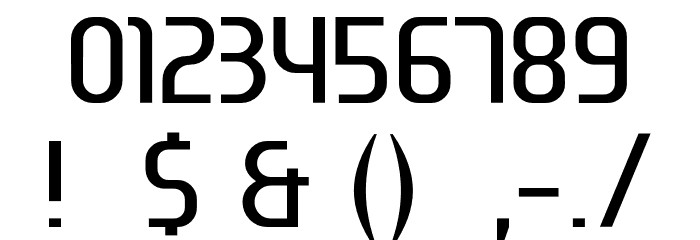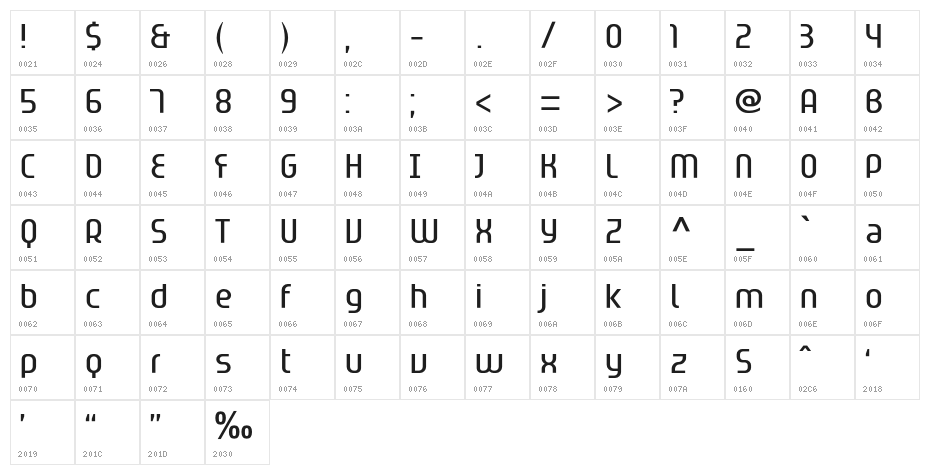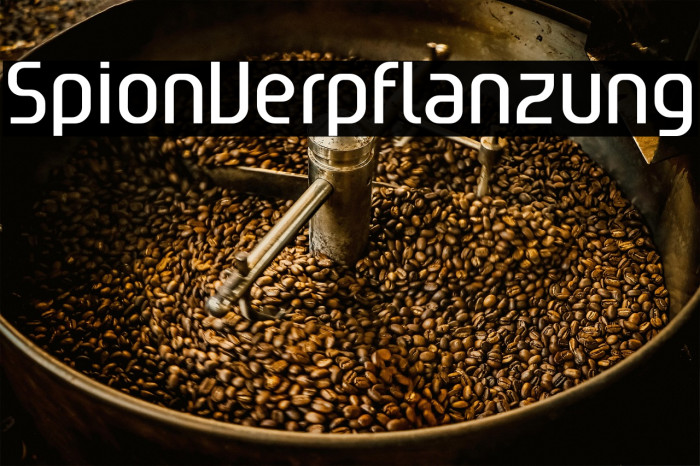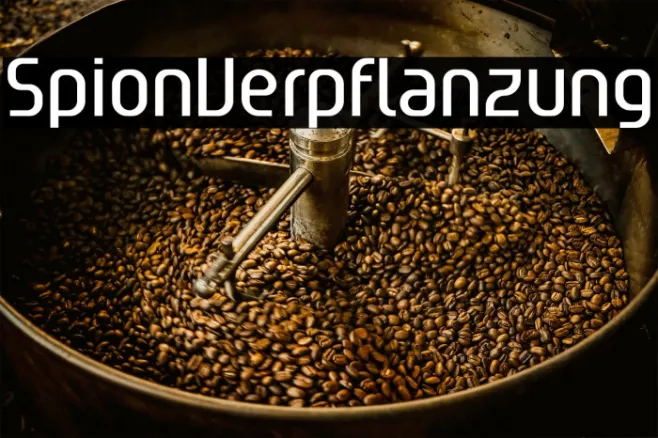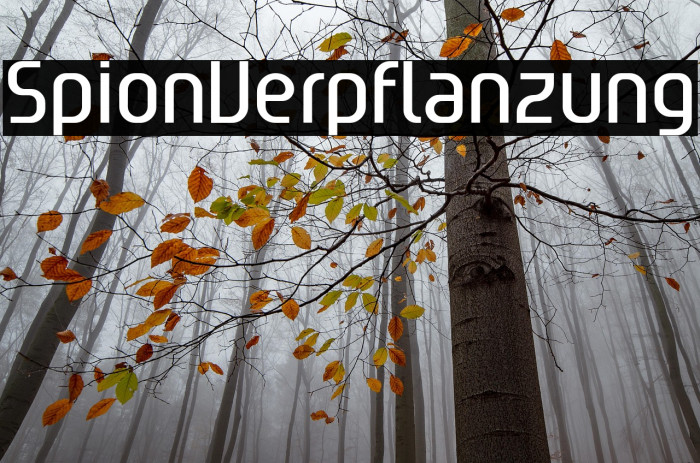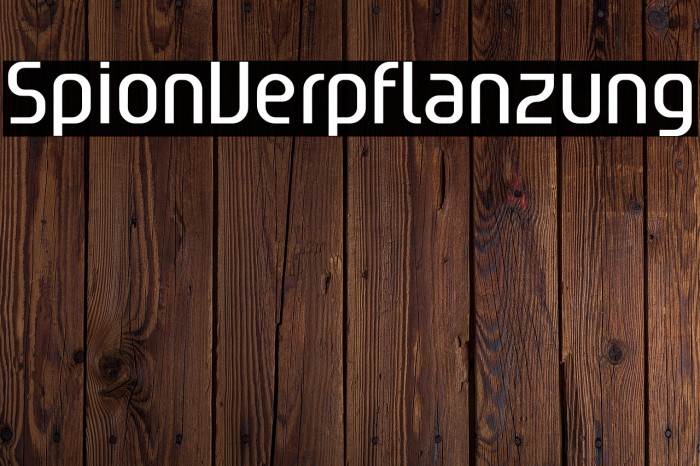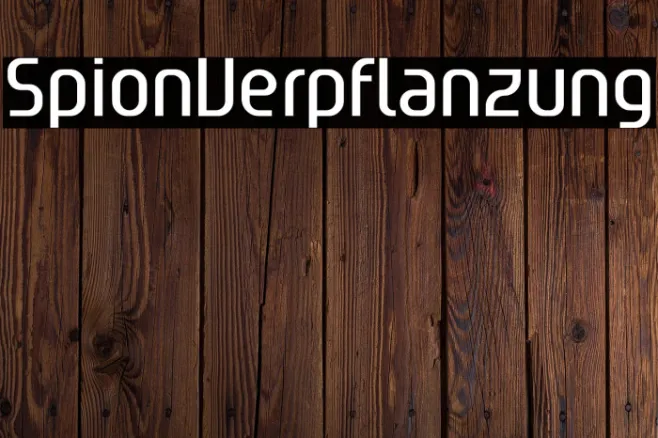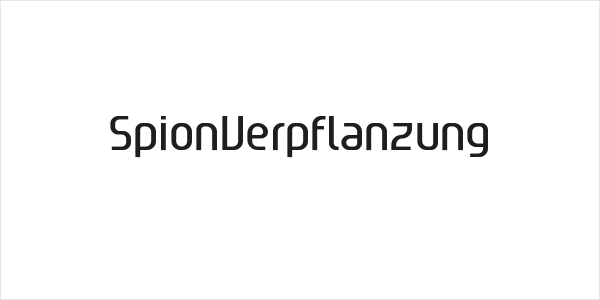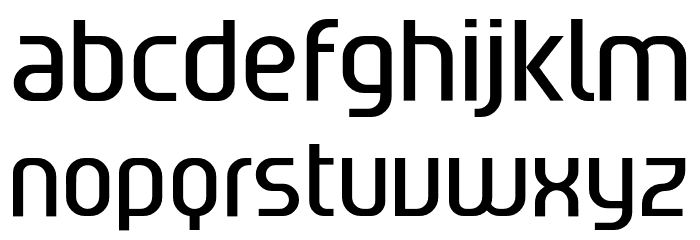
SpionVerpflanzung Font
SpionVerpflanzung Description
This font features a modern, geometric design with clean lines and a sleek appearance. The characters are uniform in width, creating a balanced and harmonious look. The uppercase and lowercase letters maintain a consistent style, with rounded edges that soften the overall appearance. The numerals are clear and easily distinguishable, while the special characters blend seamlessly with the rest of the set. This font's simplicity and clarity make it versatile for various design applications.